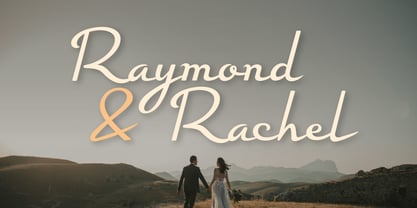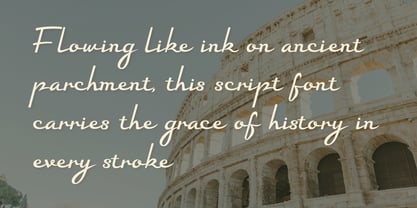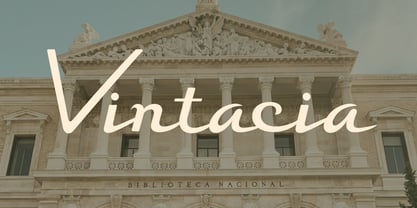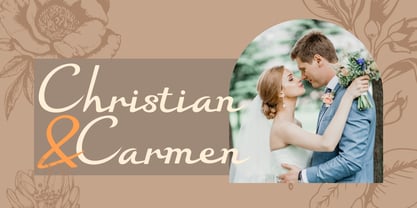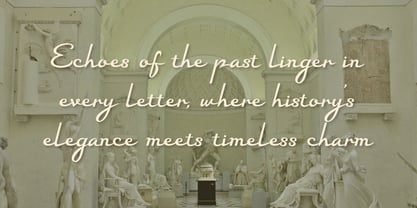
Vintacia
by Habitype
The Vintacia Font Family was designed by Fahrul Saputra and published by Habitype. Vintacia contains 1 styles. More about this family
Vintacia is an elegant, retro-inspired script font designed to capture the timeless flow of classic hand-lettering. Striking the perfect balance between mid-century nostalgia and contemporary clean lines, it brings a fresh, sophisticated energy to modern layouts.
With its smooth strokes and effortlessly fluid character, Vintacia adds an instant touch of old-school charm without losing its crisp, premium edge. It is incredibly versatile and highly legible, making it an excellent choice for standout designs.